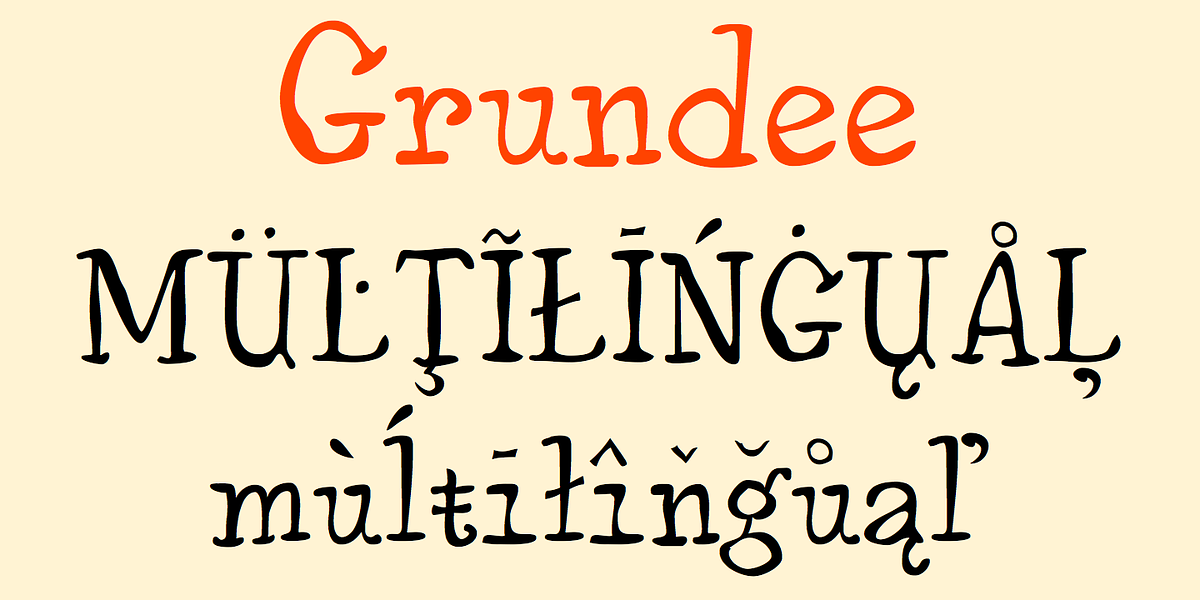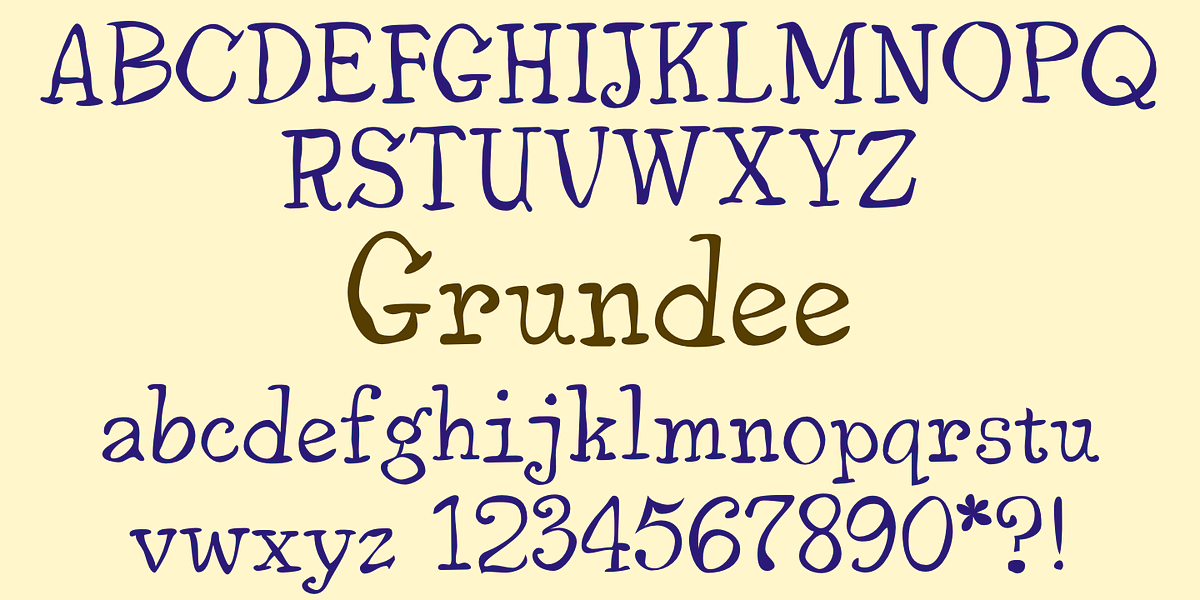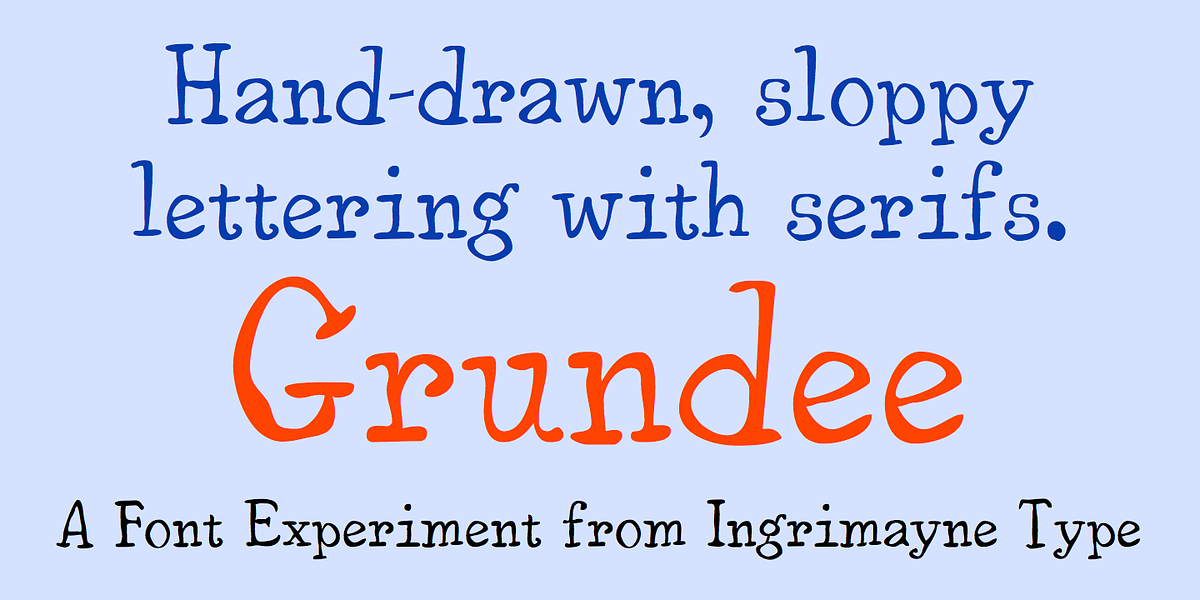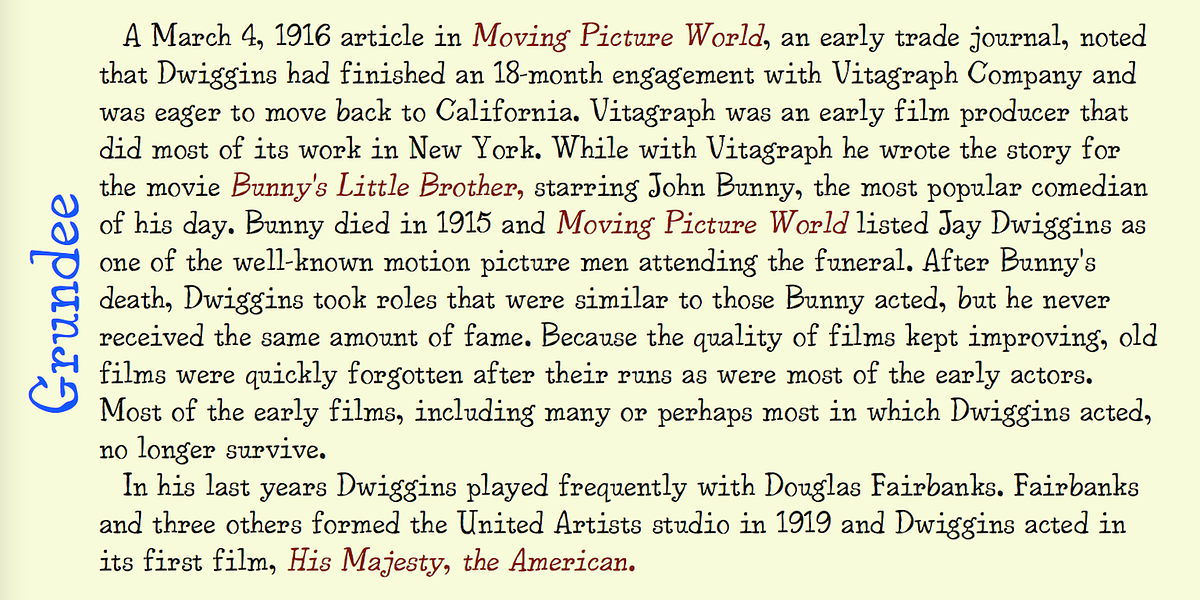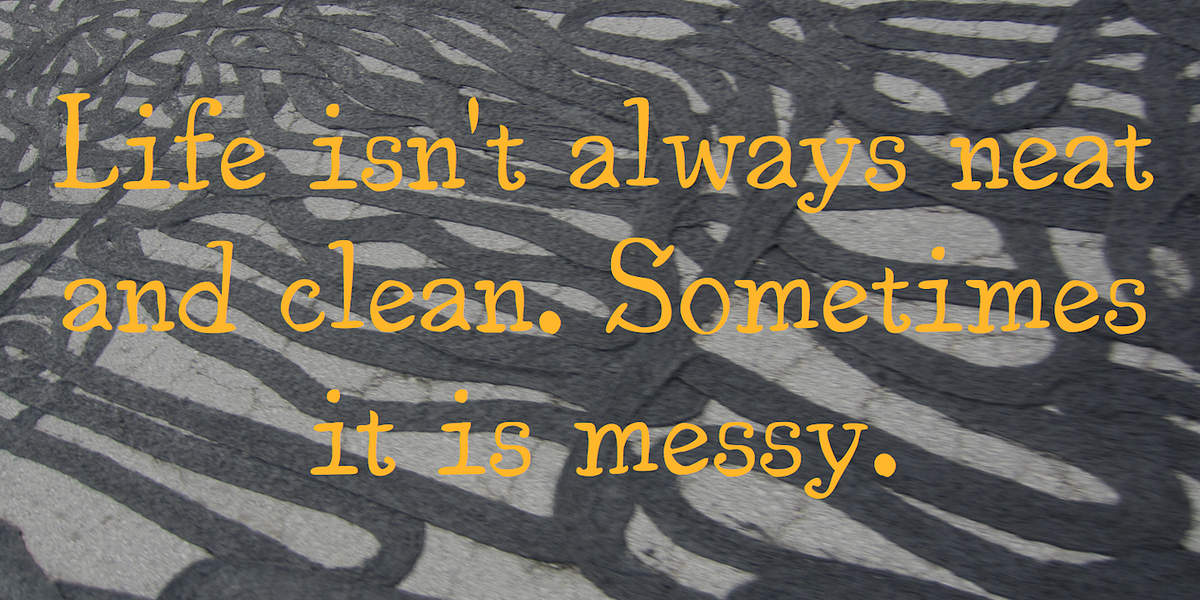
Grundee
Grundee is a serif font characterized by its grungy and handcrafted appearance. It features irregular strokes and uneven letterforms, giving it a unique and textured aesthetic. Despite its rough nature, Grundee remains legible, making it suitable for display purposes such as headlines, branding materials, and editorial design where a grunge or handmade feel is desired.